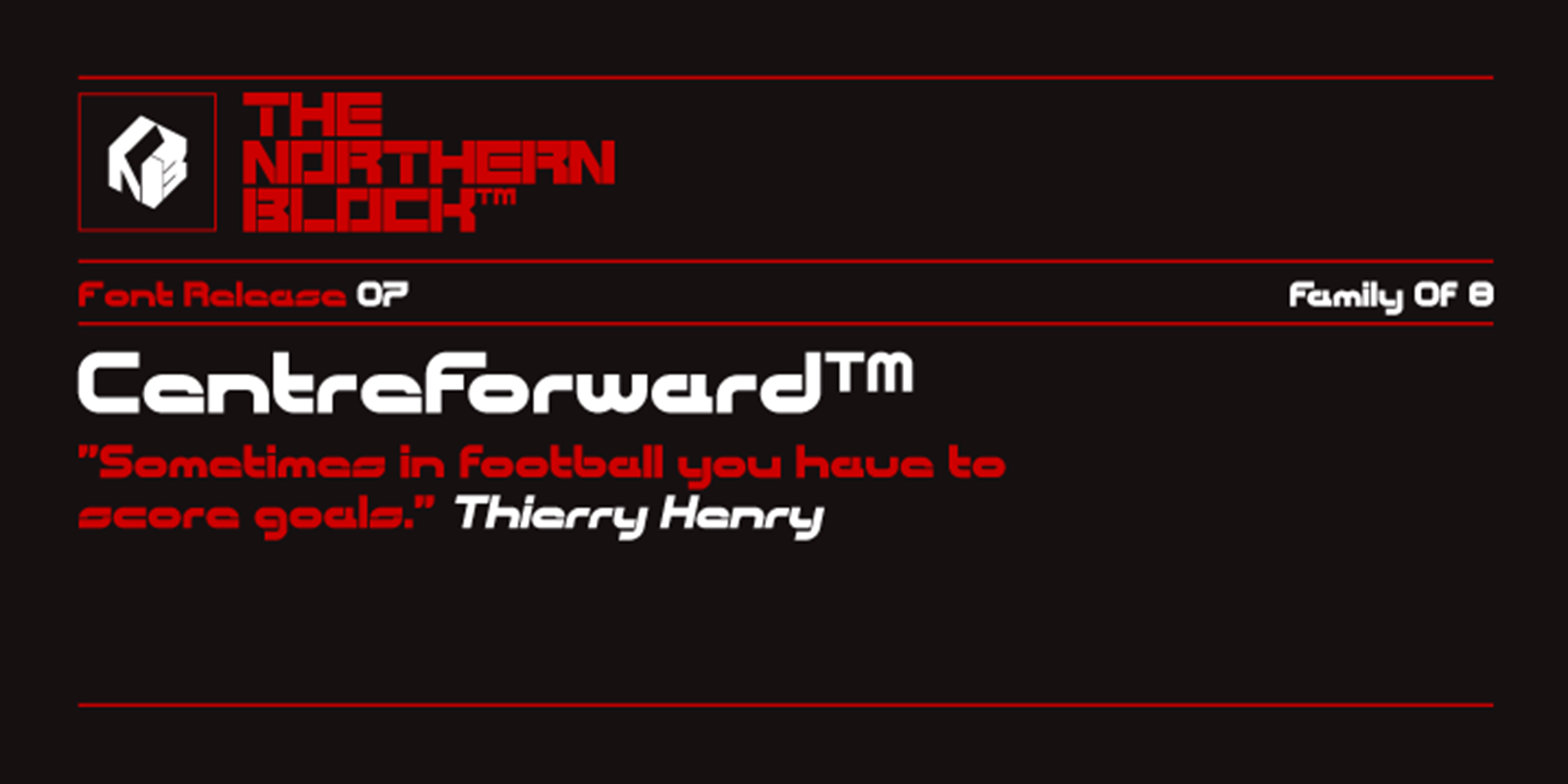
Where Can You Use CentreForward Font?
This high-energy font scores in:
Sports team branding (perfect for jerseys, logos and mascots)
Esports graphics (intense gaming visuals and streaming overlays)
Fitness marketing (gym branding, workout programs, supplements)
Action sports promotions (extreme sports events and adrenaline brands)
Why Is CentreForward Font Exciting?
CentreForward captures the dynamic motion of elite athletics with its slanted, forward-leaning letterforms. Unlike static fonts, it conveys speed, power and relentless forward momentum - ideal for projects that need to communicate competitive excellence.
CentreForward Font Family
The complete championship collection includes:
CentreForward Regular (base athletic style)
CentreForward Bold (maximum impact version)
CentreForward Outline (hollow sporty variant)
CentreForward Condensed (narrow track-ready option)